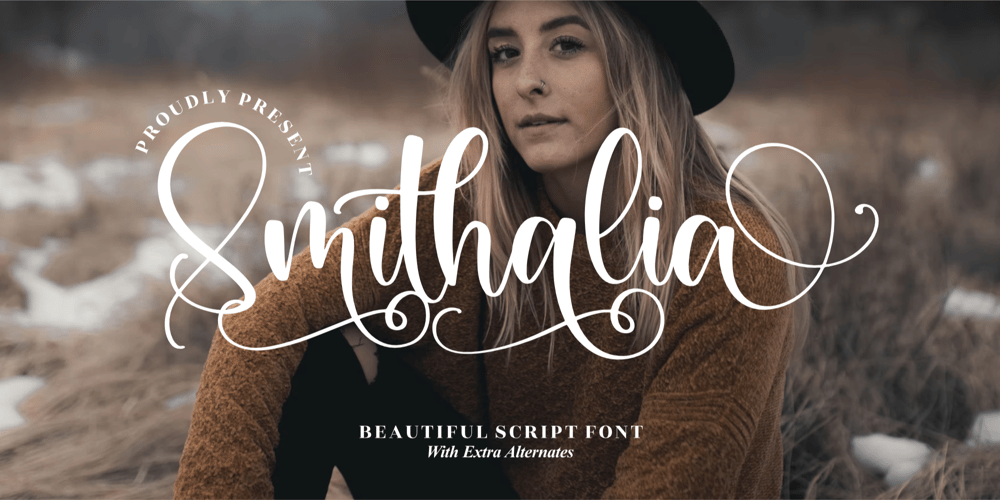
Smithalia Font Family was designed by Heru Utama Putra and published by Letterena Studios. Smithalia contains 2 styles and family package options. Smithalia is a romantic and sweet calligraphy typeface with characters that dance along the baseline. It will add a luxury spark to any design project that you wish to create! This font is PUA encoded which means you can access all of the amazing glyphs and ligatures with ease!